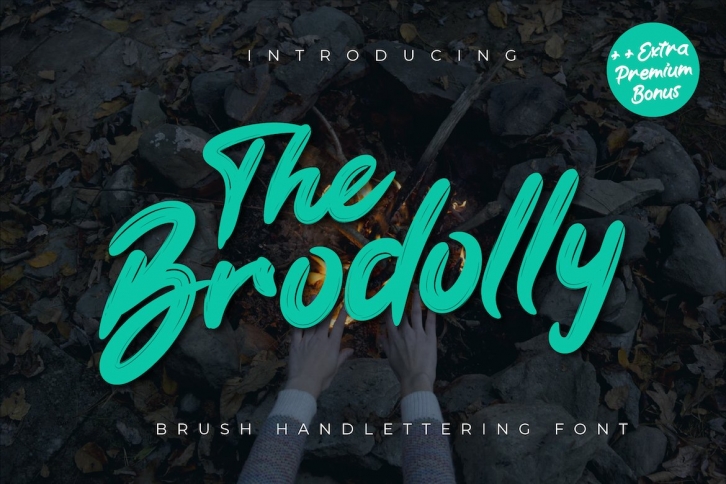
The Brodolly is a trendy and unique font with an authentic style. It was designed by twinlettertype and it's a great choice for creative people who need such a font. It was released on April 10, 2021 and the file size is 6.69 MB. The Brodolly will add an organic vibe to any design idea!